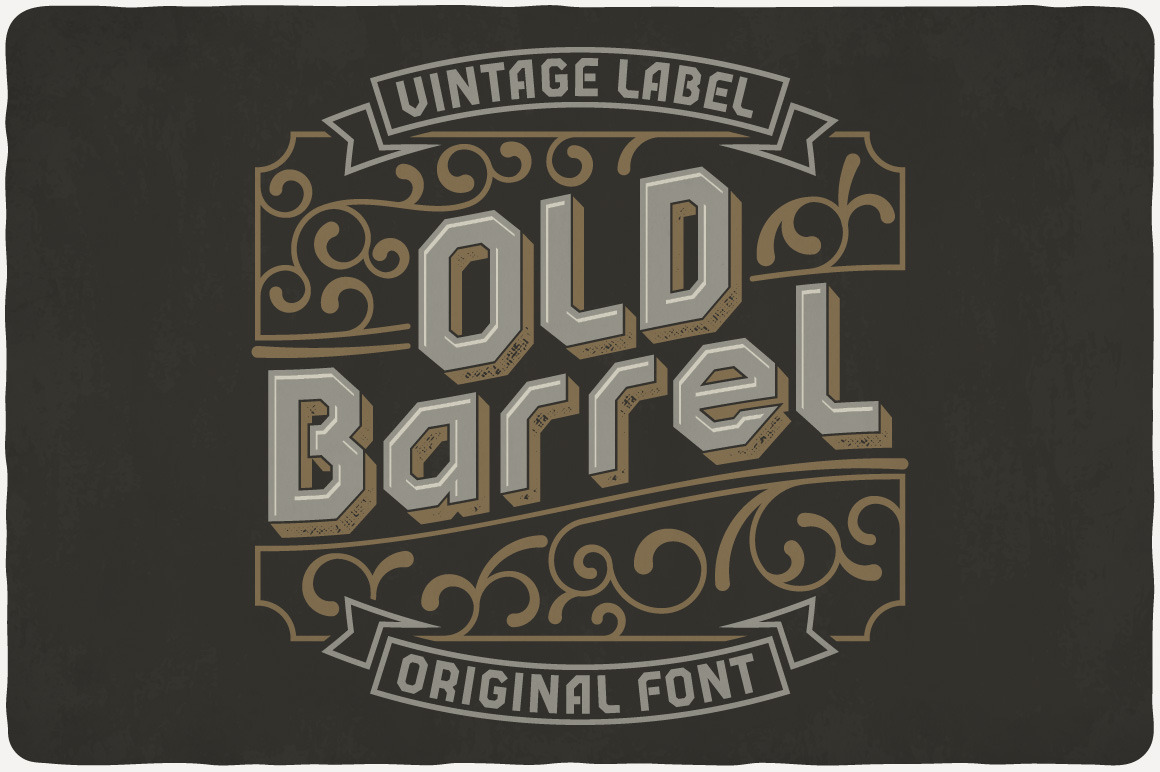
Old Barrel typeface
Introducing a vintage look label typeface named "Old Barrel". It's made in old school and vintage label style. Typeface is good viewed on any yours design.